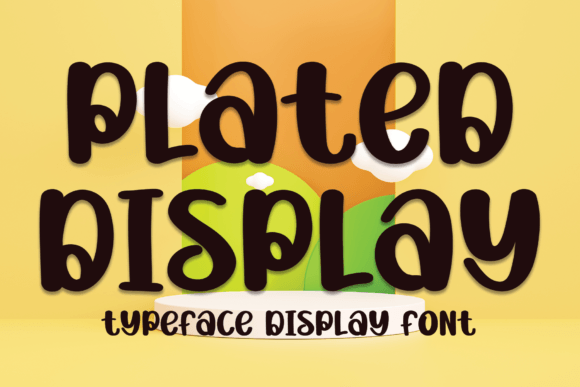
About Plated Display Font
Plated Display Font is a sweet and friendly handwritten display typeface designed to add charm and playfulness to your creative projects. Its cute and lively style makes it an excellent choice for wedding invitations, greeting cards, and any design that calls for a joyful and inviting look.
Sweet and Playful Handwritten Display Design
Plated Display features fun, rounded strokes and expressive letterforms that bring warmth and personality to your work. This font’s playful nature makes it perfect for adding a lighthearted and joyful feel to your designs.
Ideal Uses for Plated Display Font
This versatile font is great for:
Wedding invitations and event stationery
Greeting cards and thank-you notes
Social media graphics and posts
Party invitations and festive designs
Personal projects needing a playful handwritten look
Plated Display adds sweetness and cheer to a wide variety of creative applications.
Why Choose Plated Display Font?
Designers choose Plated Display for its:
Sweet and friendly handwritten style
Playful and readable letterforms
Versatility across print and digital media
These features make Plated Display a practical and delightful font choice.
Add Joy and Charm to Your Designs
Typography influences the mood of your project. Plated Display brings joy, charm, and friendliness, helping your designs connect warmly with audiences. Whether for weddings, celebrations, or casual creativity, this font enhances your vision.
In summary, Plated Display Font is a sweet and playful handwritten display font perfect for designers seeking a joyful and inviting style. Add Plated Display to your font collection to create charming and memorable designs.